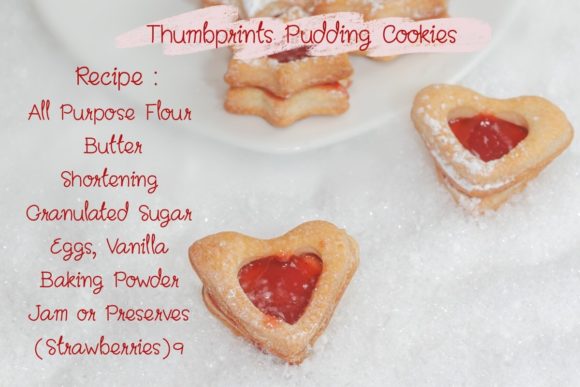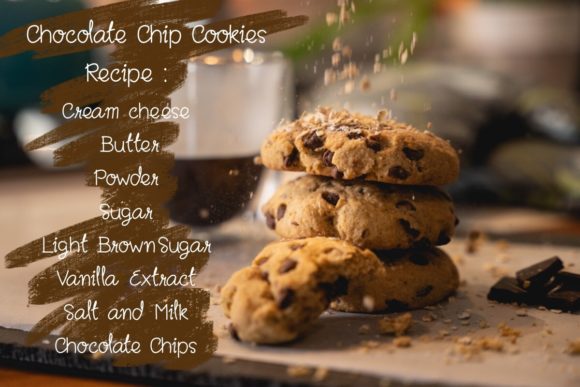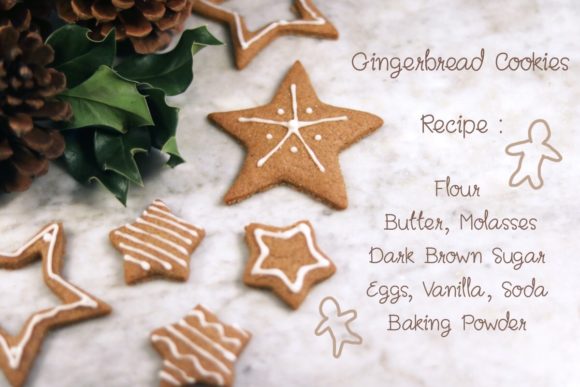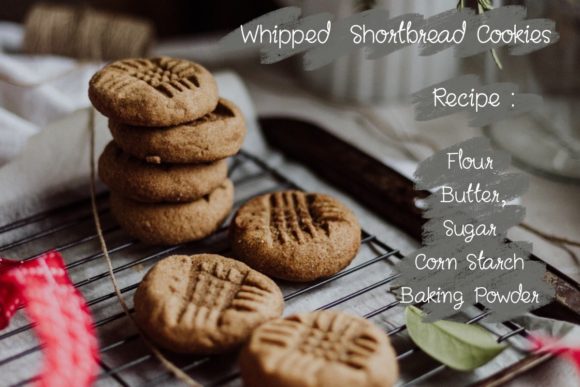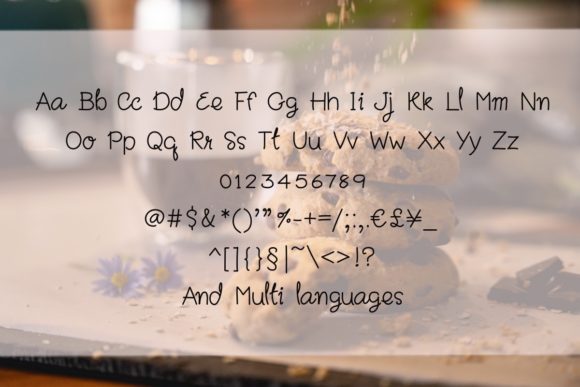
Christmas Cookies Font
About Christmas Cookies Font
Christmas Cookies is a sweet and friendly handwritten font. Its natural and unique style makes it incredibly fitting to a large pool of designs. The only limit is your imagination!